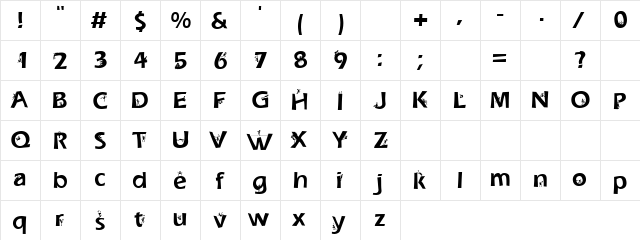
Younglad Regular
Design Context for Younglad Typeface
Younglad is a composed and adaptable typeface that performs quietly and consistently across a wide range of design contexts.